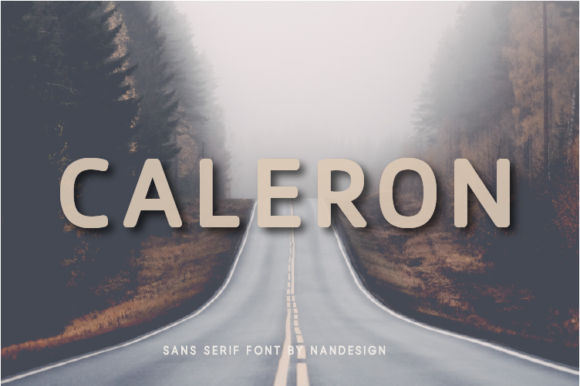
Unleash your creativity with Caleron Font, the ultimate sans serif font that adds a touch of boldness and chunkiness to your designs. Its distinctive character and neat, simple style make it a versatile choice for a multitude of projects.
With Caleron, you can effortlessly enhance the visual appeal of your designs. Its robust and substantial letterforms command attention, while its clean lines ensure readability. Whether you're creating logos, posters, brochures, social media graphics, or website designs, Caleron is your perfect companion.
Embark on a design adventure with Caleron and discover a world of possibilities. Its adaptability makes it suitable for a wide range of design projects, from playful and quirky to elegant and sophisticated. Let your imagination soar as you explore the endless creative avenues that Caleron opens up for you.